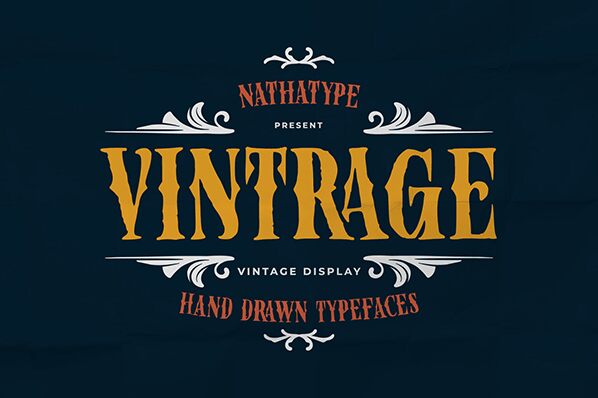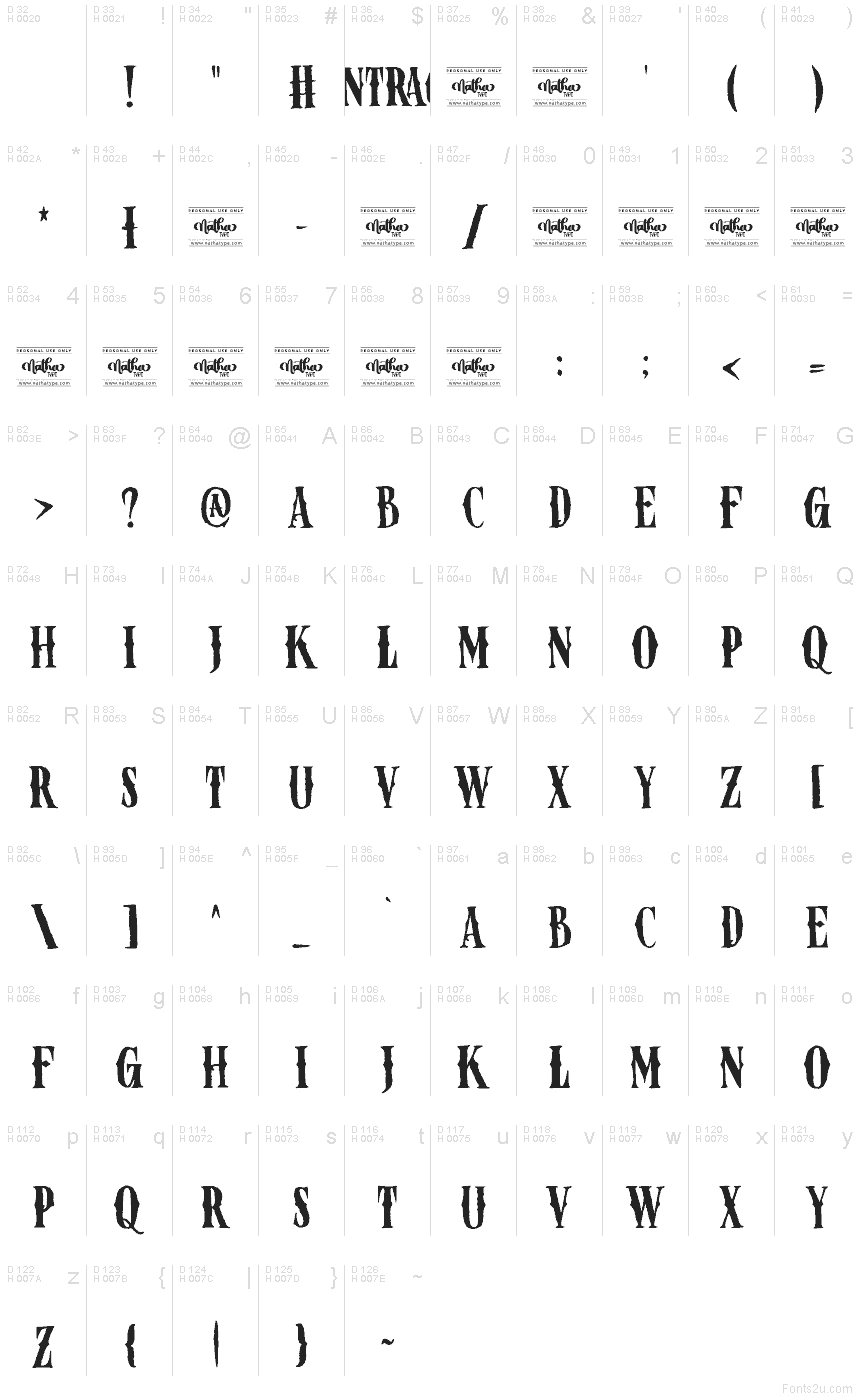
Vintrage Personal Use
Vintrage font by Nathatype is a free vintage display typeface with a wonderfully warped, hand-inked feel. The tall, narrow letters look like they’ve been pulled from an old carnival poster—edges slightly ragged, curves exaggerated, and strokes that wobble just enough to feel human. It has a dark, theatrical energy, as if every word is stamped with bold wood type that’s been used for decades.
Using Vintrage, headlines instantly grab attention and set a moody, nostalgic scene, so it shines on gig posters, beer labels, event titles, book covers, packaging, and bold social graphics. This free font works best when you let it breathe at larger sizes and pair it with a clean sans serif for body text to keep the drama focused where it belongs.